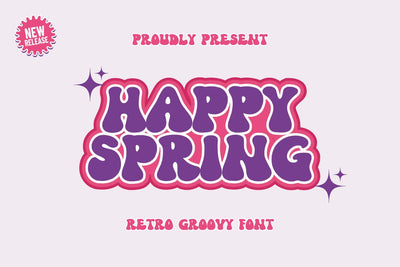
Happy Spring - Retro Groovy Font
Hi, Introducing Happy Spring - Retro Groovy Font
A cool and adorable retro groovy-inspired display font. This font is great for various creative project needs such as news posters, product packaging, quotes, interior design, t-shirts, graphic clothing, online banners, social media, greeting cards, initials, logo designs, event banners, exhibitions, book covers , ebook cover, article title, blog title, craft, DIY, and many other creative ideas